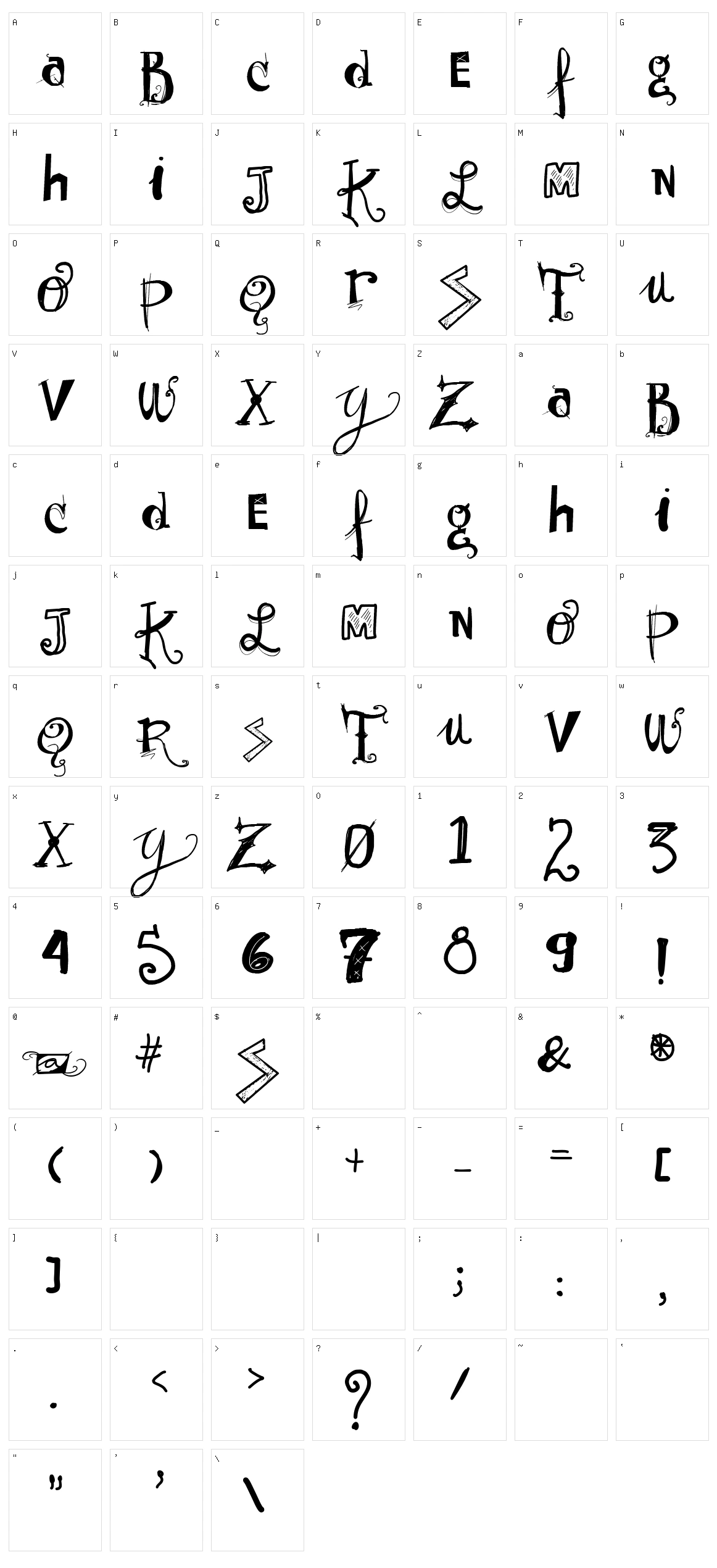
The free font Vtks Sunny Day is carefully designed by Douglas Vitkauskas, showcasing a thoughtful balance of creativity and usability and falls under the Decorative font style. When you download the ZIP file, it contains only 103.21 KB of font files, making it lightweight and quick to download. Please review the license details below to understand permitted usage and distribution rights. If license information is not available, we recommend using this font for personal projects only or contacting the author directly for commercial usage permissions.